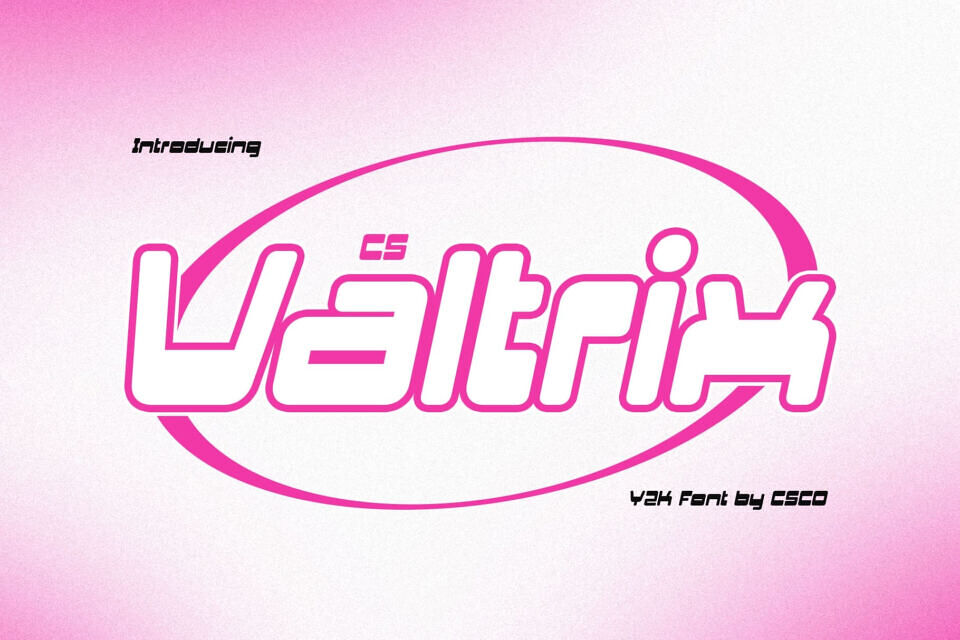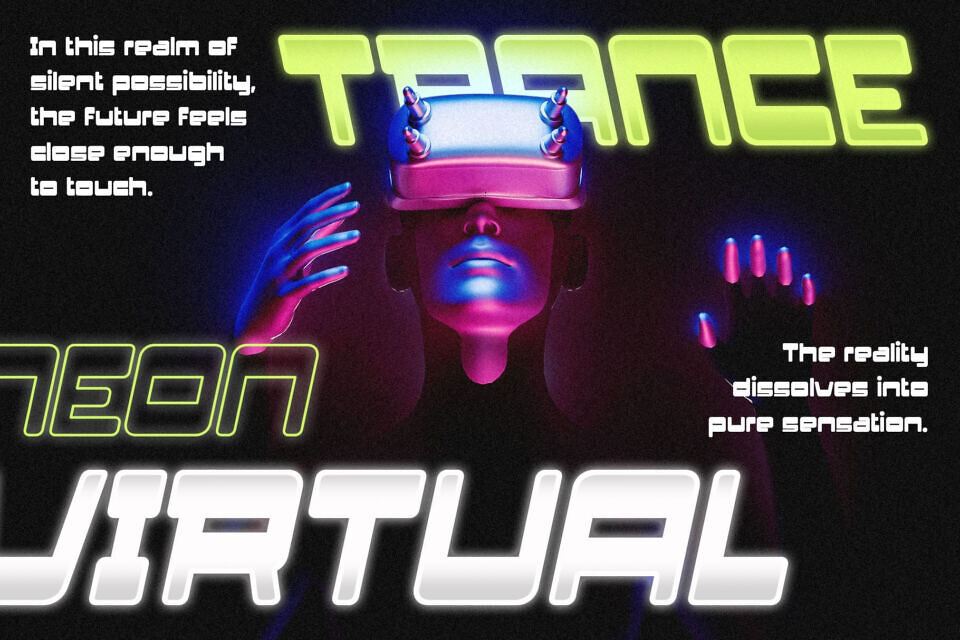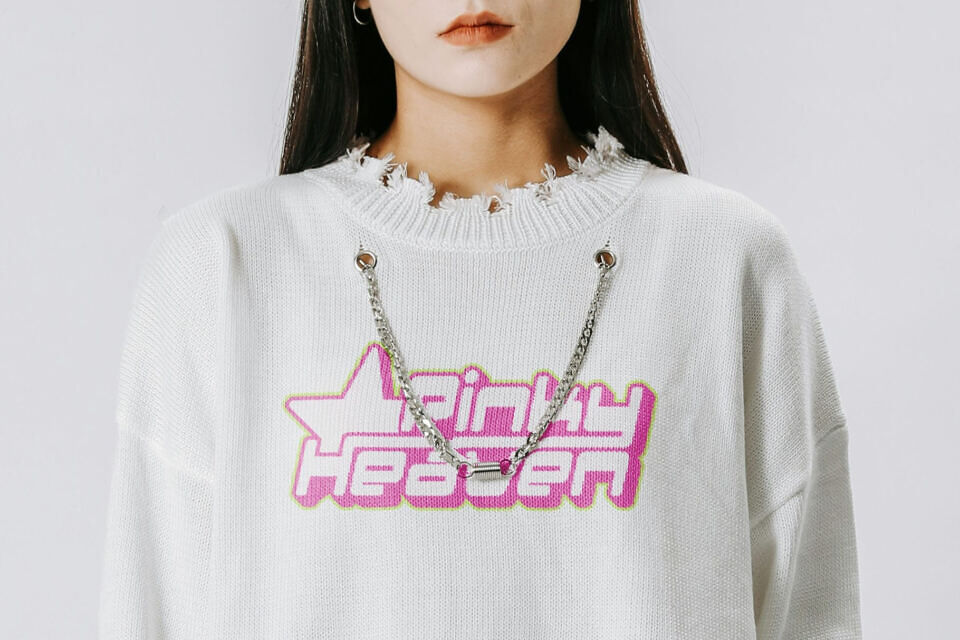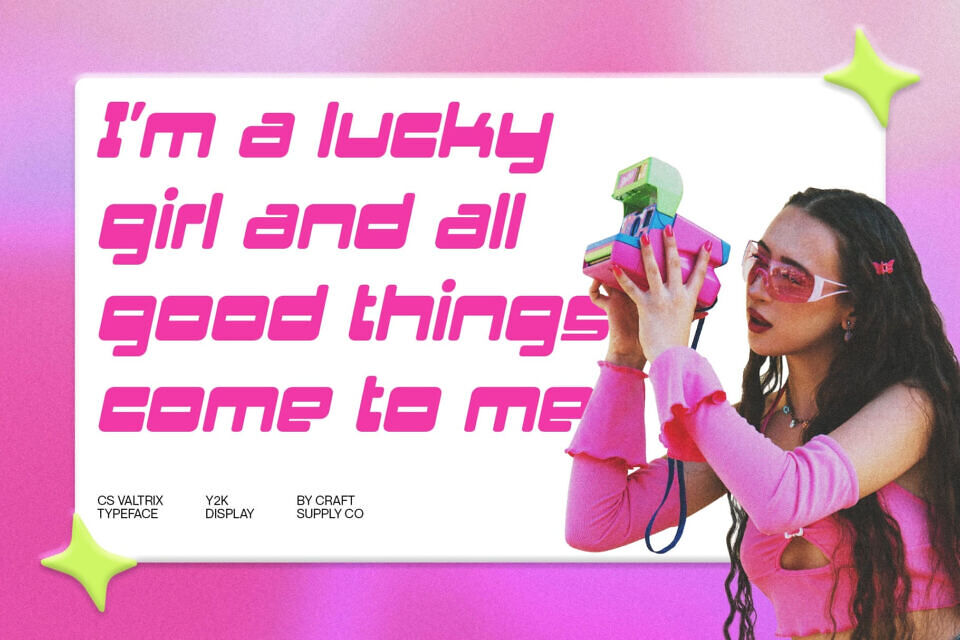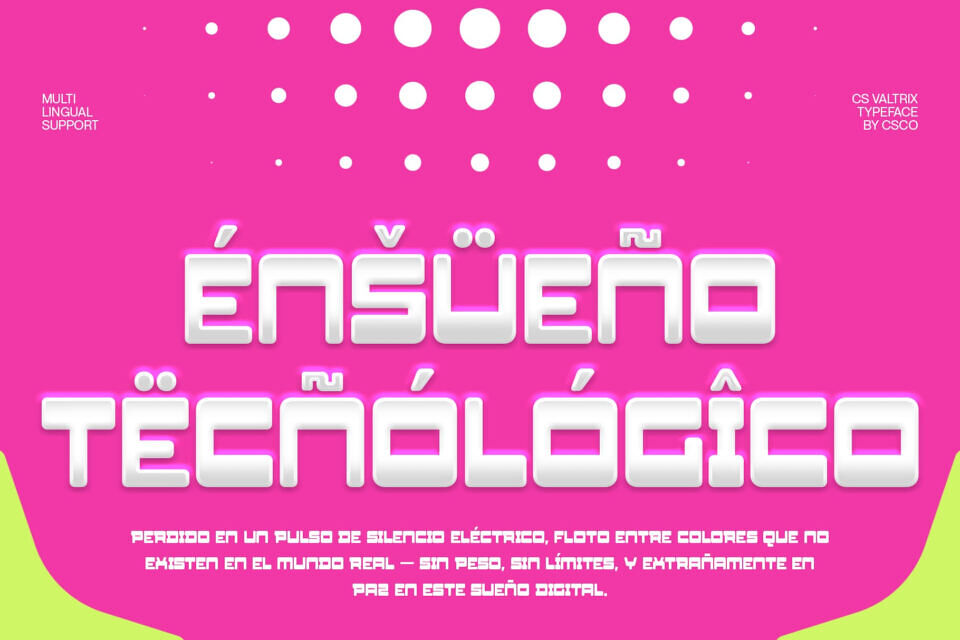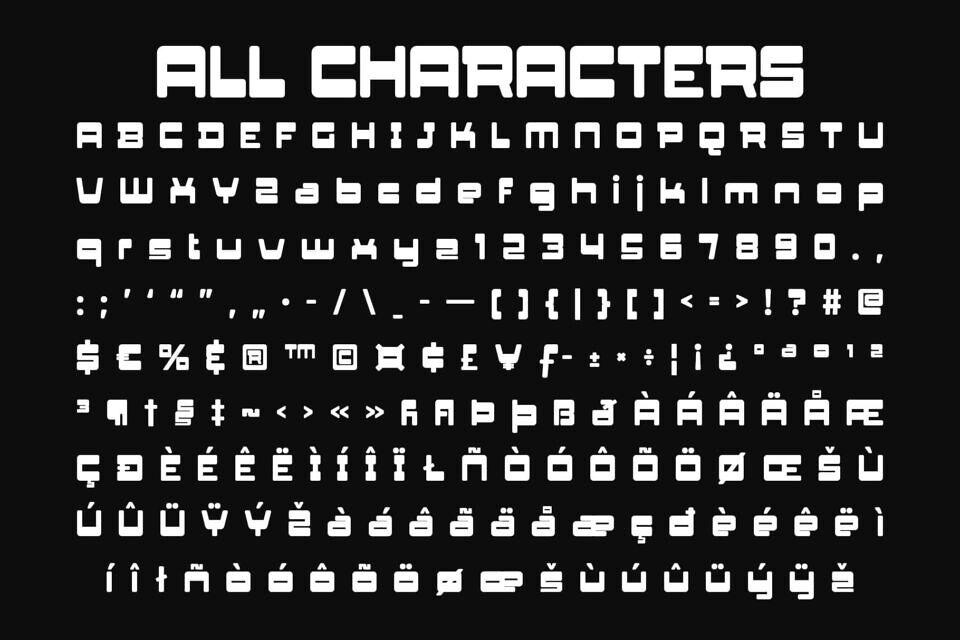
Cs Valtrix Font
This is a bold and dynamic Y2K display font that captures the spirit of early 2000s aesthetics through shimmering gradients and striking outlines. Every letter radiates energy and nostalgia, evoking the playful yet futuristic style of the millennium age. It’s designed to command attention, making your visuals pop with digital vibrance and confidence.
The strong letterforms of this font are enhanced by their bold outlines, giving each character a structured yet expressive feel. This visual strength is balanced with smooth curves and sleek geometry, creating a design that feels both retro and forward-looking perfect for evoking cyber, pop, or tech-inspired moods.